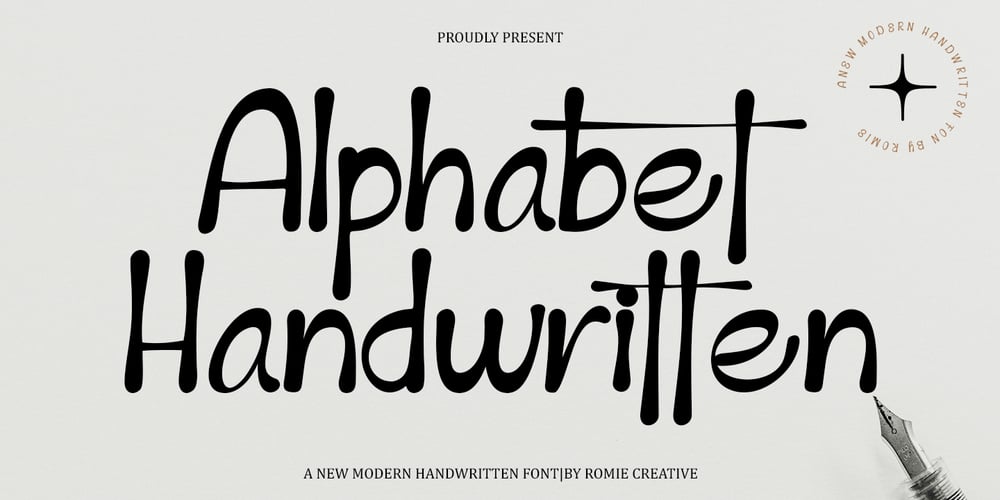
Alphabet Handwritten
Alphabet Handwritten font
Alphabet Handwritten Font Family was designed by Romi Rahmadi and published by Romie Creative. Alphabet Handwritten contains 1 styles and family package options. Alphabet Handwritten Font is a modern Handwritten font. It’s perfect for branding, wedding invitations, photography, Neon Sign, bloggers, logos, greeting cards, Logo, Quotes and more.Font Features :- Uppercase – Lowercase – numeric & Multilingual support- LigaturesAll of features and special characters of this font are included in one file. So it is easy to accessed by using program or software that support the opentype like Adobe Illustrator, Adobe Photosop, and Adobe Indesign).